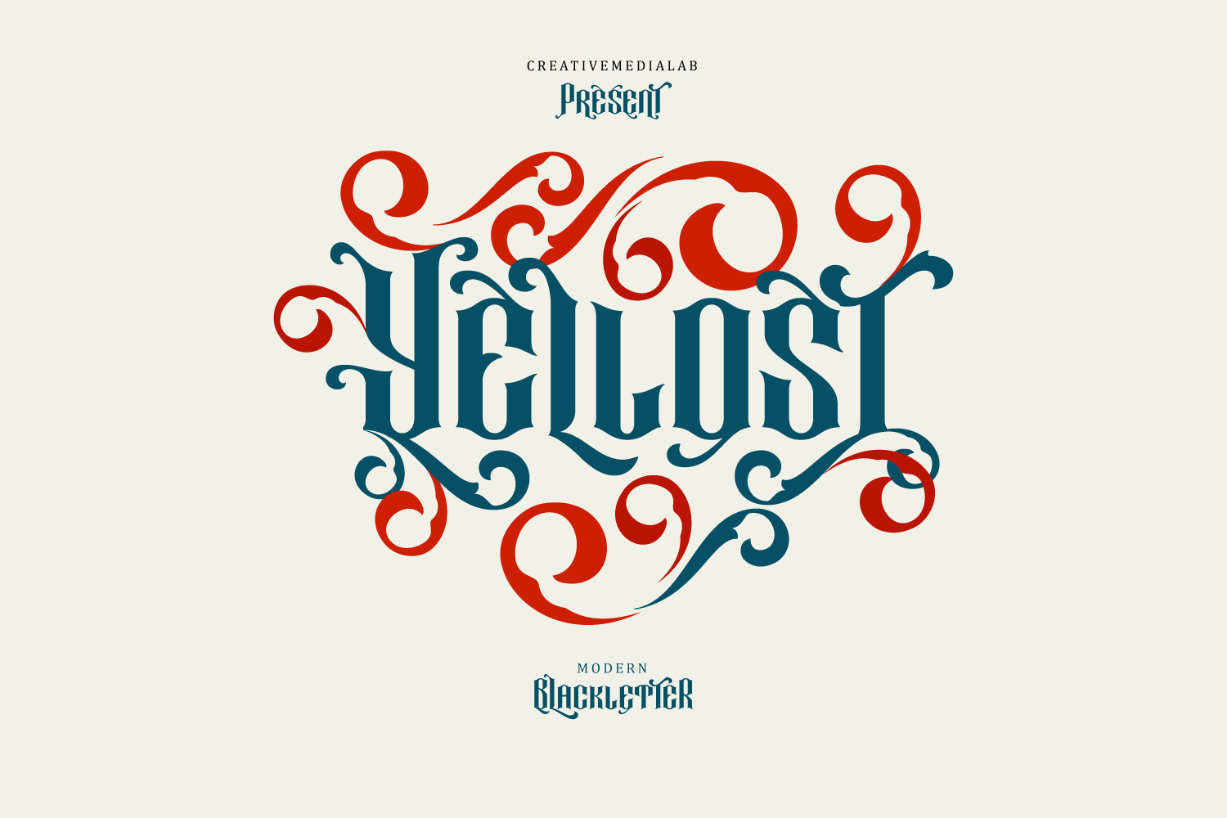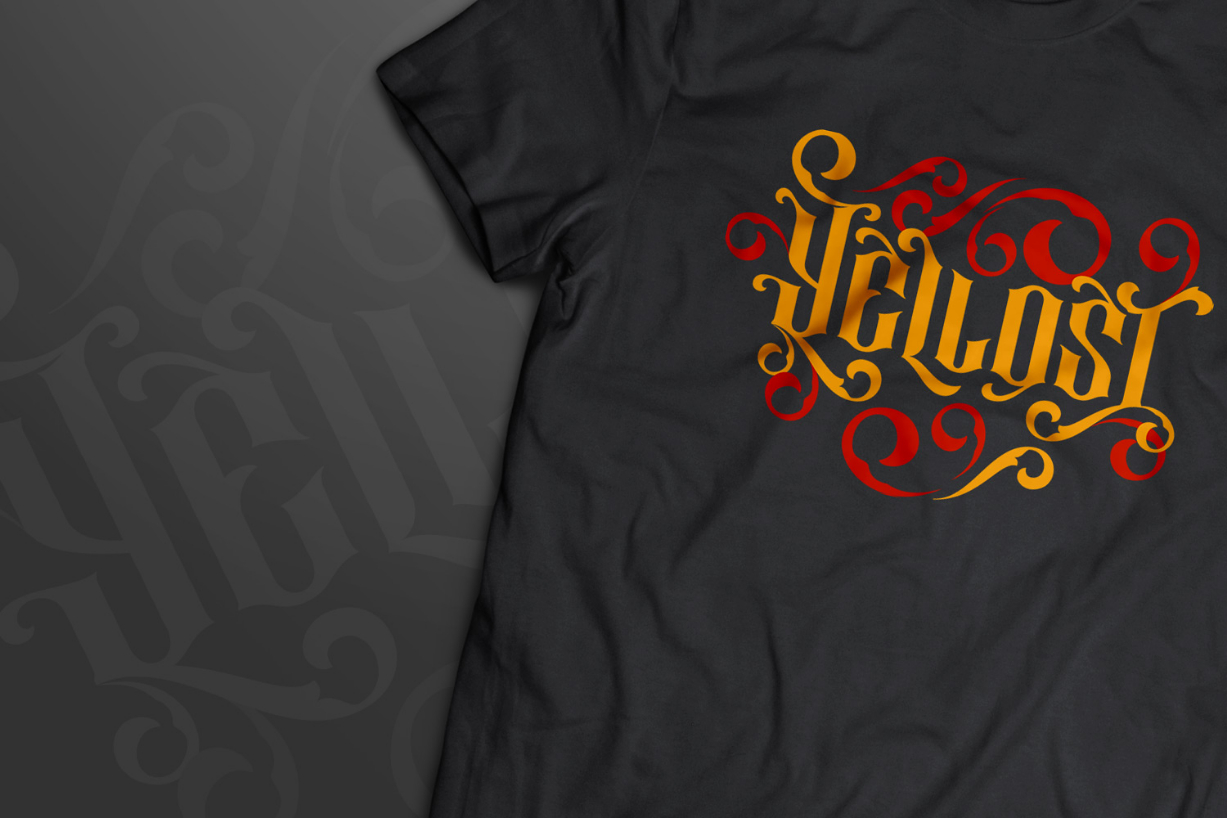
About Yellost Font
Yellost feels both modern and old-timey, which makes it an incredibly unique font. With tons of alternates, it’s an easy-to-remember display font, perfect for tattoos clothing, packaging, branding, or any Gothic-themed projects!